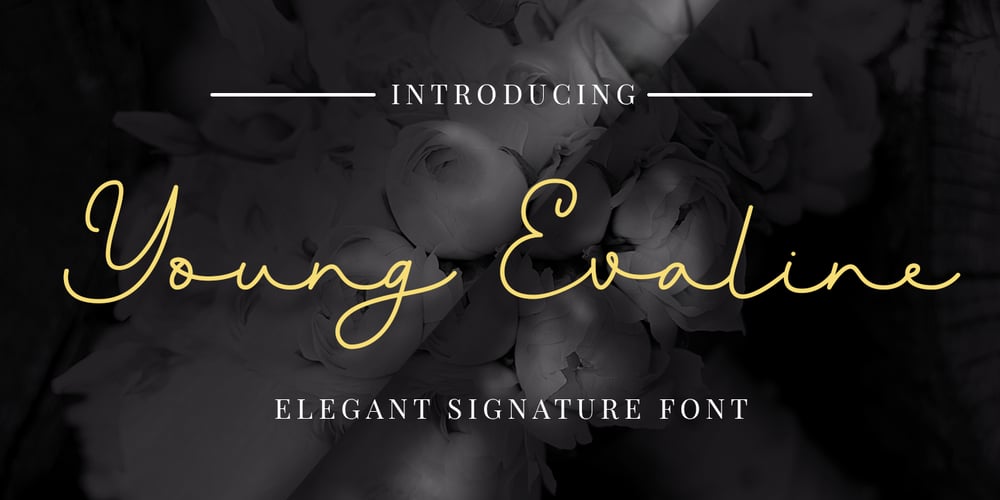
Young Evaline
Young Evaline font
Young Evaline Font Family was designed by Abdul Malik Wisnu and published by Almarkha Type. Young Evaline contains 1 styles and family package options. Young Evaline – Elegant Signature, this font is great for your creative projects such as watermark on photography, and perfect for logos & branding, photography, invitation, watermark, advertisements, product designs, stationery, wedding designs,label, product packaging, special events or anything that need Signature taste.